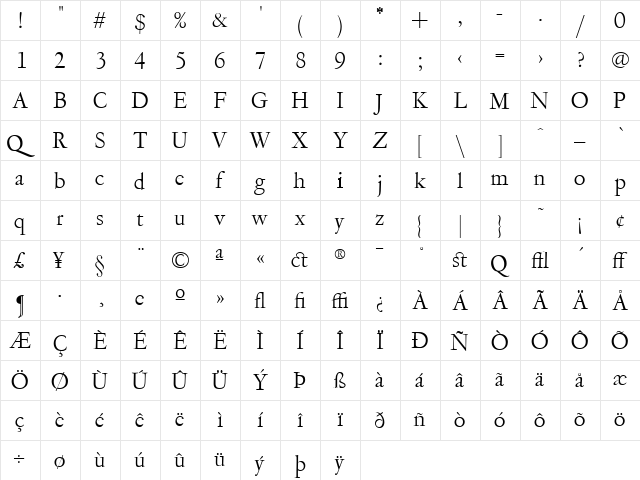
LTC Garamont Display Regular
| Designer | Frederic Goudy, Jim Rimmer |
Design Context for LTC Garamont Display Typeface
LTC Garamont Display brings ornamental detail and strong personality to headlines and identities, where visual impact matters more than quiet functionality.
Font Pairing: Pair with a clean neutral sans-serif for body copy to let LTC Garamont Display's character lead without overwhelming the composition.
Pro Tip: Use LTC Garamont Display exclusively at display sizes — it was designed to be seen, not read at length. Let a neutral companion handle body copy.